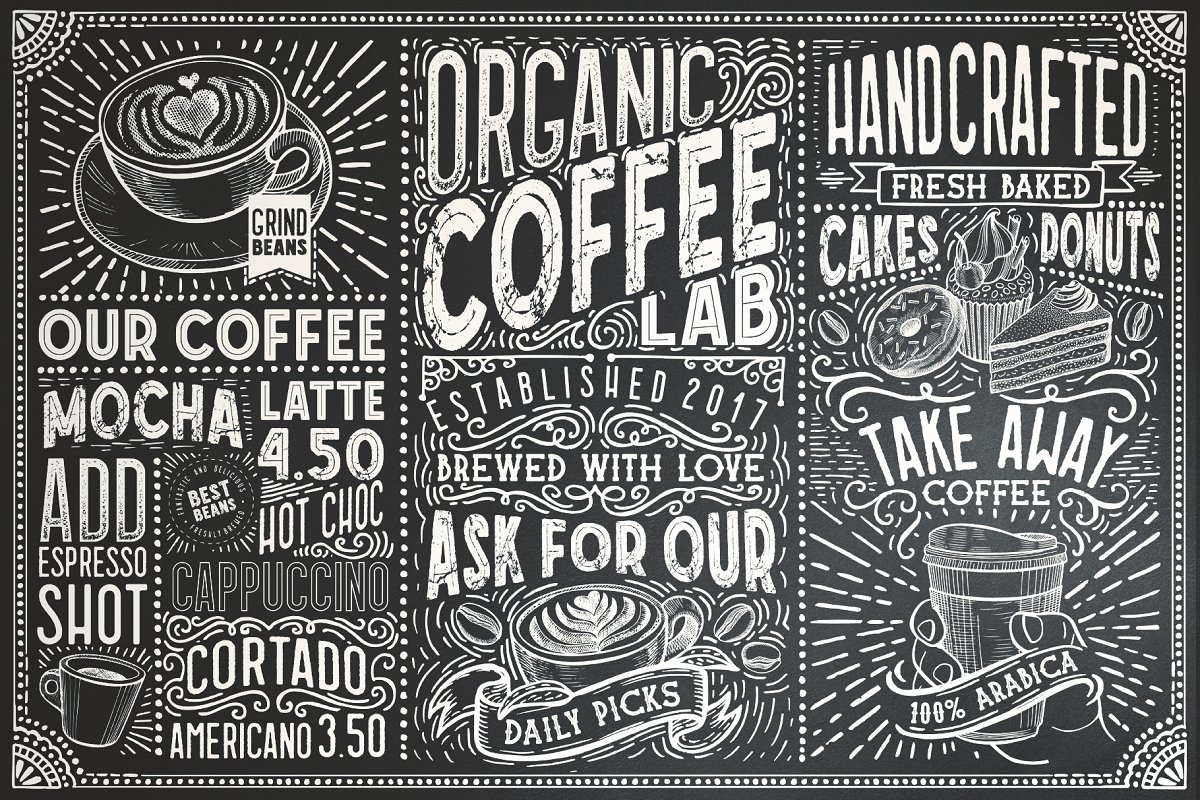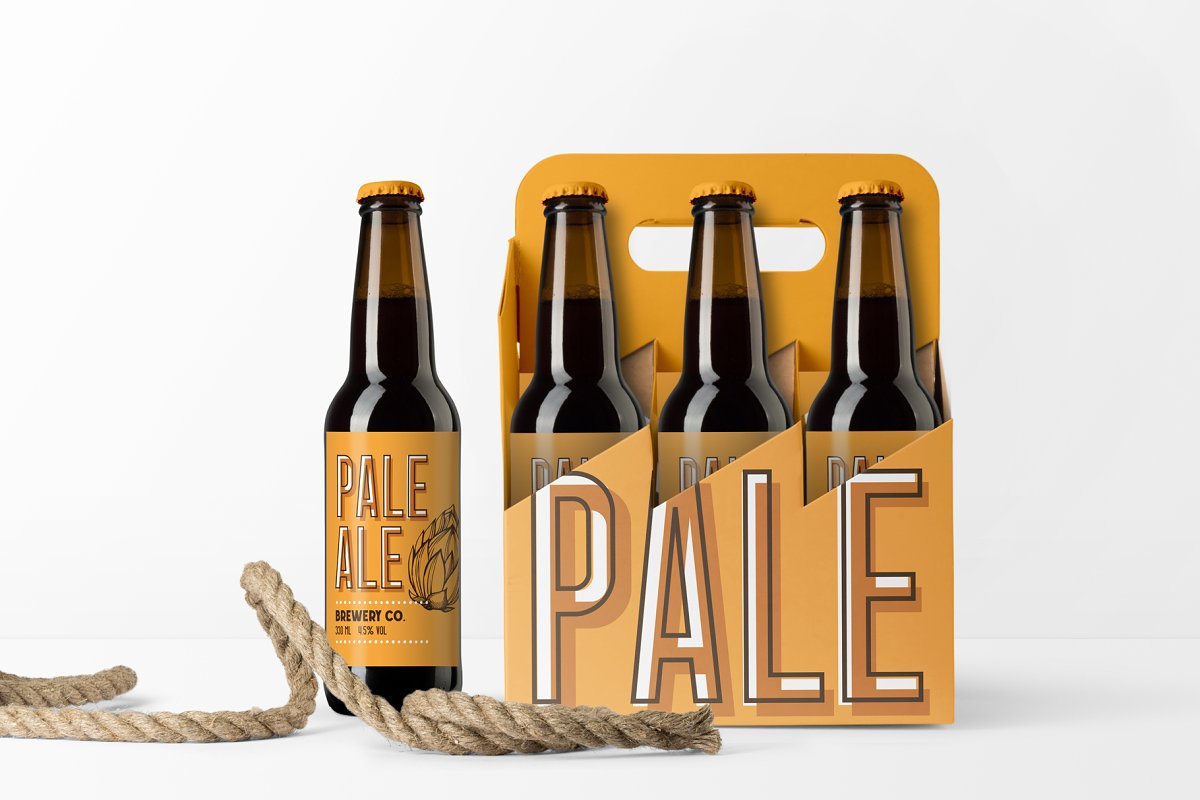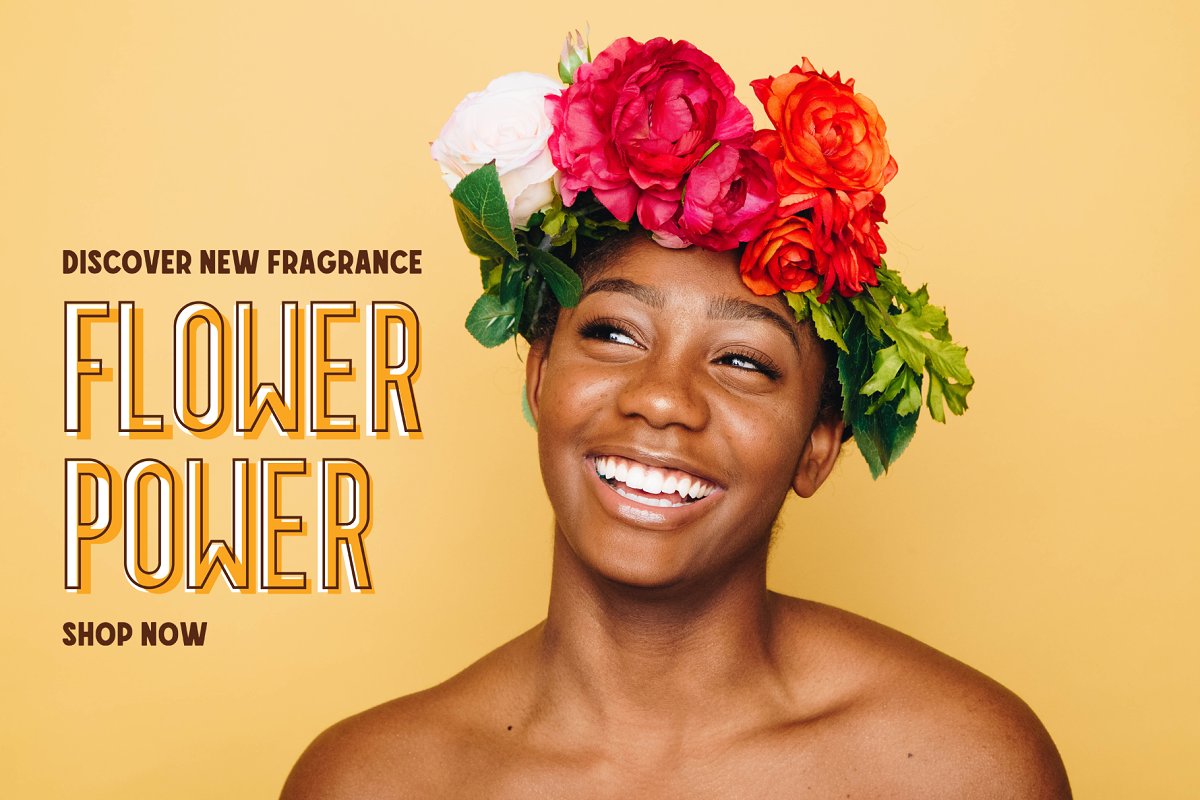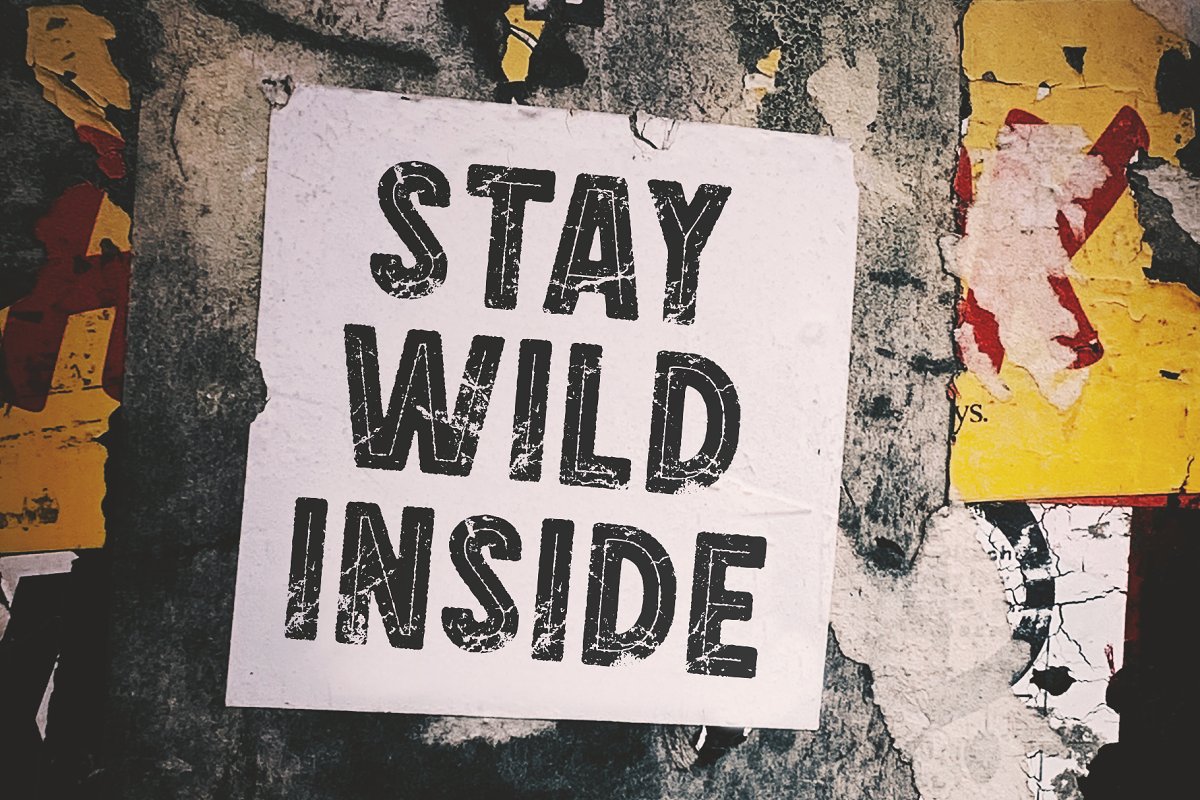
About the Cee Lab Collection Font
Coffee Lab Font Collection – 15 StylesCoffee Lab – a font collection of vintage, rough, rounded, outline, inline styles, Includes uppercase letters, punctuation, numbers, special characters, multilingual support, Inside archive you will find:15 Fonts collectionTTF filesOTF filesWeb font filesGuide PDF how to install fonts on Mac & Windows Illustrations used in preview images:Coffee https://creativemarket